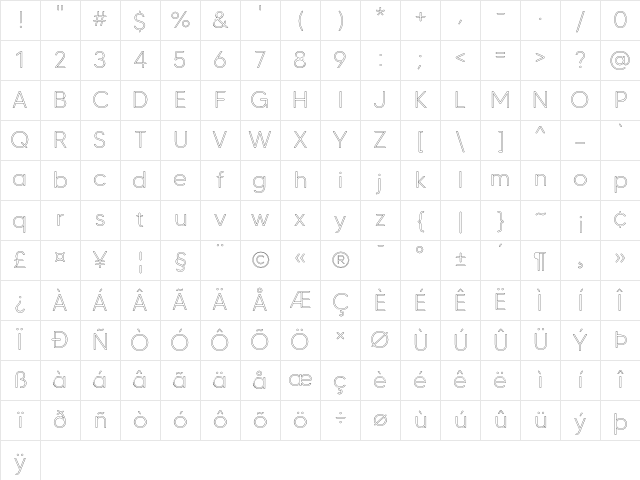
MADE Tommy Soft Outline Light
Foundry: MadeType
Designer: MadeType
Design Context for MADE Tommy Soft Outline
MADE Tommy Soft Outline is built around its visual character rather than neutral utility - its distinctive forms are designed to make an impression at display sizes. Its slender proportions lend an understated elegance to any composition.
Font Pairing: Pair with a clean neutral sans-serif for body copy to let MADE Tommy Soft Outline's character lead without overwhelming the composition.
Pro Tip: Use MADE Tommy Soft Outline exclusively at display sizes - it was designed to be seen, not read at length. Let a neutral companion handle body copy.